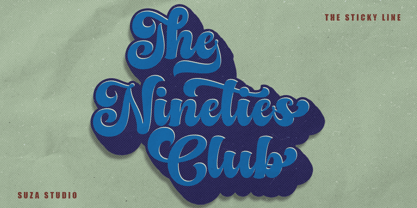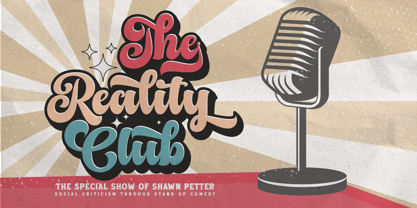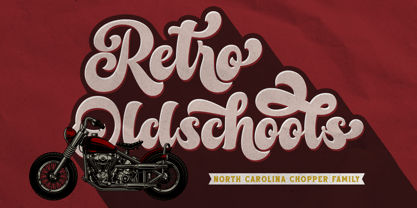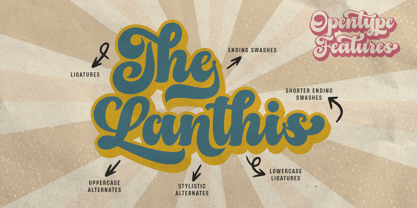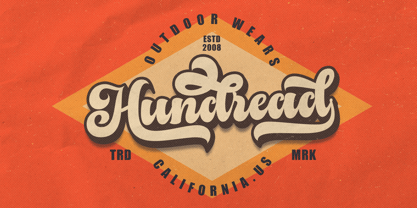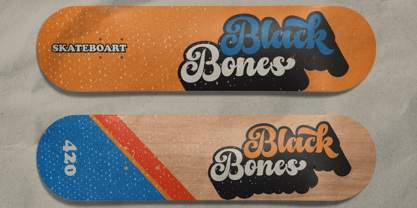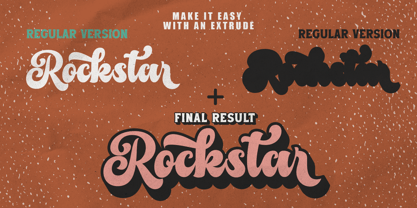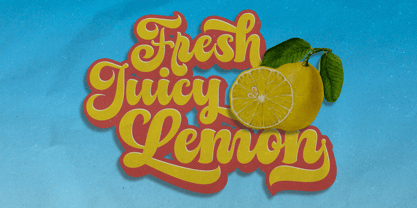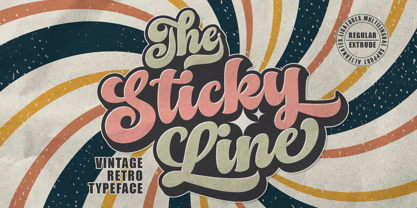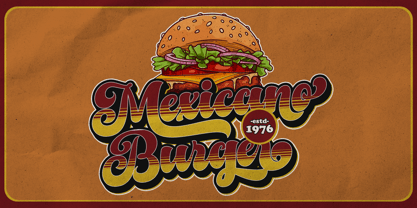
The Sticky Line
by Suza Studio
The The Sticky Line Font Family was designed by Zikrillah and published by Suza Studio. The Sticky Line contains 2 styles and family package options. More about this family
The Sticky Line is a vintage-inspired script typeface that comes with a ton of characters and Exstrudes. With 372 glyphs, tons of alternate characters, ligatures, and extra characters, you’ll have plenty of combinations to play with. The Sticky Line is perfect for vintage and retro designs, badges, logos, t-shirts, posters, branding, packaging, signage, book covers, and more!
The Features includes: Stylistic Alternates, Swashes, Ligatures, Contextual and Stylistic Set.